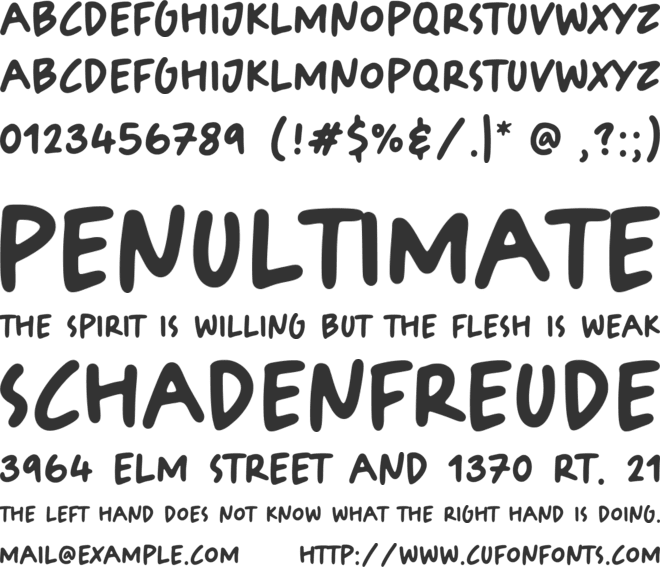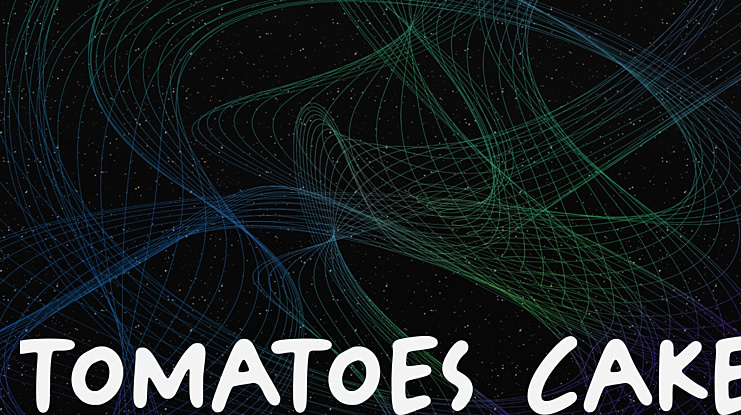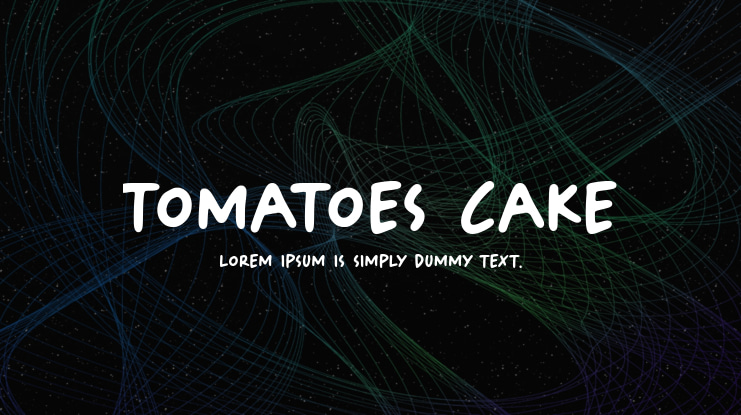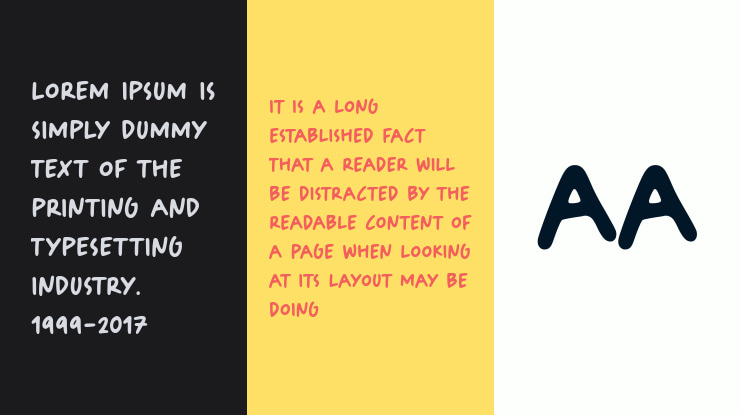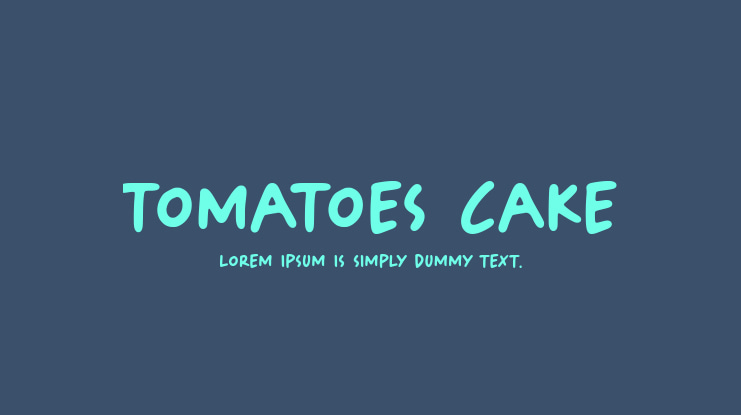
Tomatoes Cake Font
Introducing by Balpirick Studio.
Tomatoes Cake is a Cute Handbrushed Font.
Whether you’re using it for crafts, digital design, presentations, or making greeting cards, this font has the potential to become your favorite go-to font, no matter the occasion!
This font only has allcaps letters.